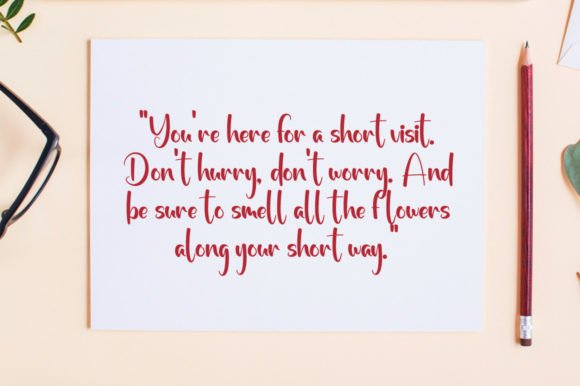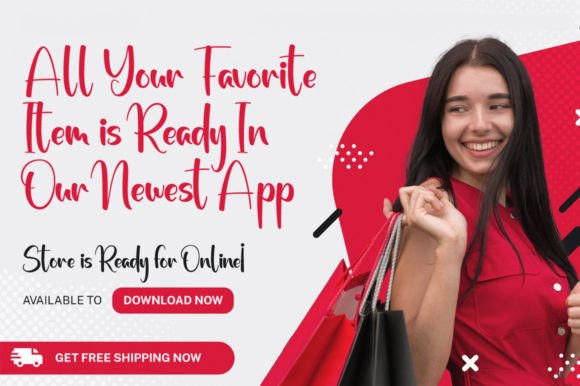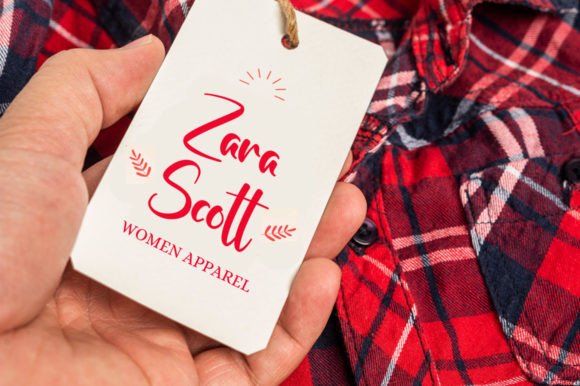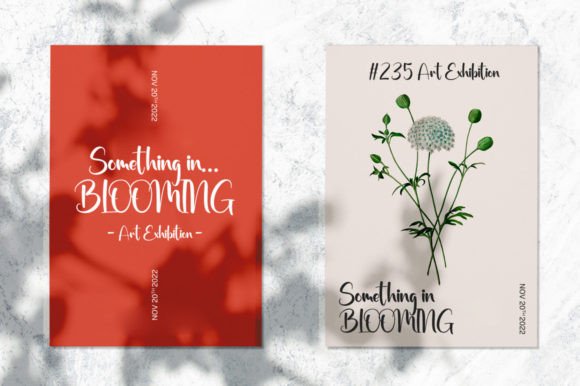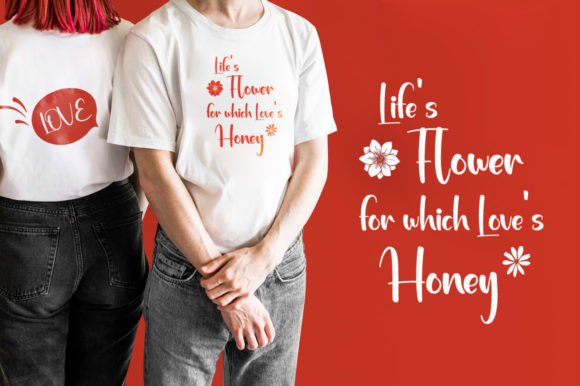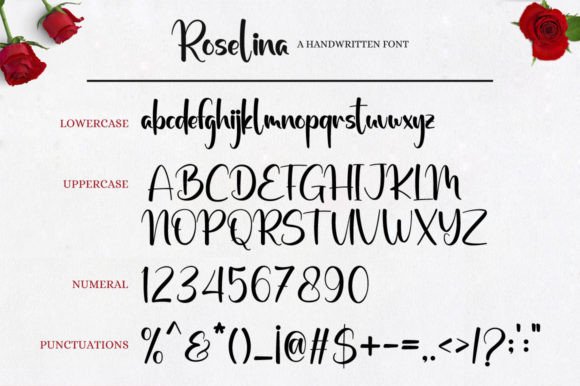
Introduction to Roselina Font
Have you ever been working on a creative project, pouring your heart and soul into every detail, and then suddenly, you stumble upon the perfect font that brings everything together? That’s exactly what happens when you discover the Roselina Font.
As a designer, you understand the importance of having a reliable design resource that can elevate your work and make it stand out. That’s where Roselina Font comes in – a lovely and timeless handwritten font that’s perfect for creating eye-catching logos, branding, and quotes. With its high-quality design and versatility, Roselina Font is a valuable addition to any designer’s toolkit.
Key Features of Roselina Font
- High-quality, professional font designed for creative projects, ideal for use in graphic design, digital art, and other design resources.
- Features a transparent background, allowing for seamless integration into complex designs and compositions.
- Supports a range of languages, making it a versatile font for international creative projects.
- Designed with a high resolution (300 DPI), ensuring crisp and clear text output in print and digital applications.
Honest Review: Roselina Font
I recently had the chance to work with the Roselina Font, and I must say it’s been a great addition to my design arsenal. ✨ The font’s elegant script design and high quality make it perfect for any creative project that requires a touch of sophistication.
- Elegant script design
- High quality
- May not be suitable for bold or heavy text use
- Limited character set compared to other fonts
Overall, I’m impressed with the Roselina Font. While it may have some limitations, its unique design and high quality make it a great addition to any designer’s toolkit. If you’re looking for a font to add a touch of elegance to your next creative project, I’d definitely recommend giving Roselina Font a try.
Roselina Font is ideal for creative projects that require a unique and stylish touch. Use it for branding, marketing materials, or social media graphics. The font’s versatility makes it perfect for a wide range of design applications.